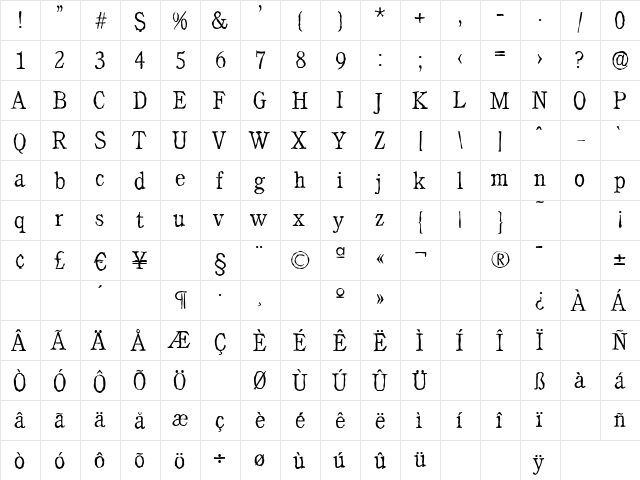
CalgaryAntique-Xlight Regular Font Preview
CalgaryAntique-Xlight Regular
Design Context for CalgaryAntique-Xlight Typeface
CalgaryAntique-Xlight has the warm character of retro typography — evoking diners, record sleeves, and the golden age of print advertising. The delicate stroke weight brings airiness and refinement to layouts.
Font Pairing: Combine CalgaryAntique-Xlight with a simple slab or neutral sans — period-accurate companions reinforce the vintage feel without competing for attention.
Pro Tip: Use CalgaryAntique-Xlight for headlines and pull quotes rather than body copy — its personality is best appreciated in short, focused bursts.